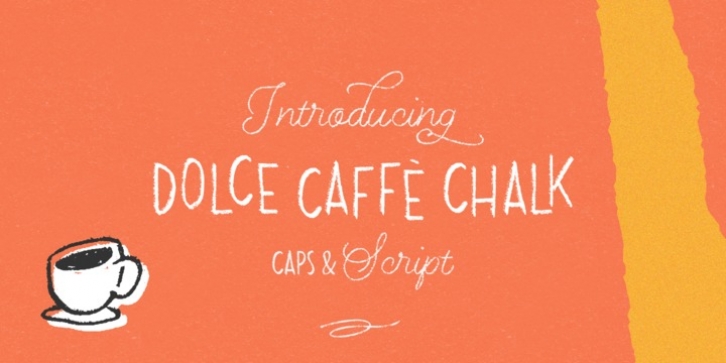
Dolce Caffe Chalk was designed by Giuseppe Salerno, Paco González and published by Resistenza. Dolce Caffe Chalk contains 4 styles and family package options.
We are glad to introduce a chalk version of our Dolce Caffè with a upright Script and Extras, containing swashes, ornaments and icons.
The script contains opentype features with ligatures and alternates.